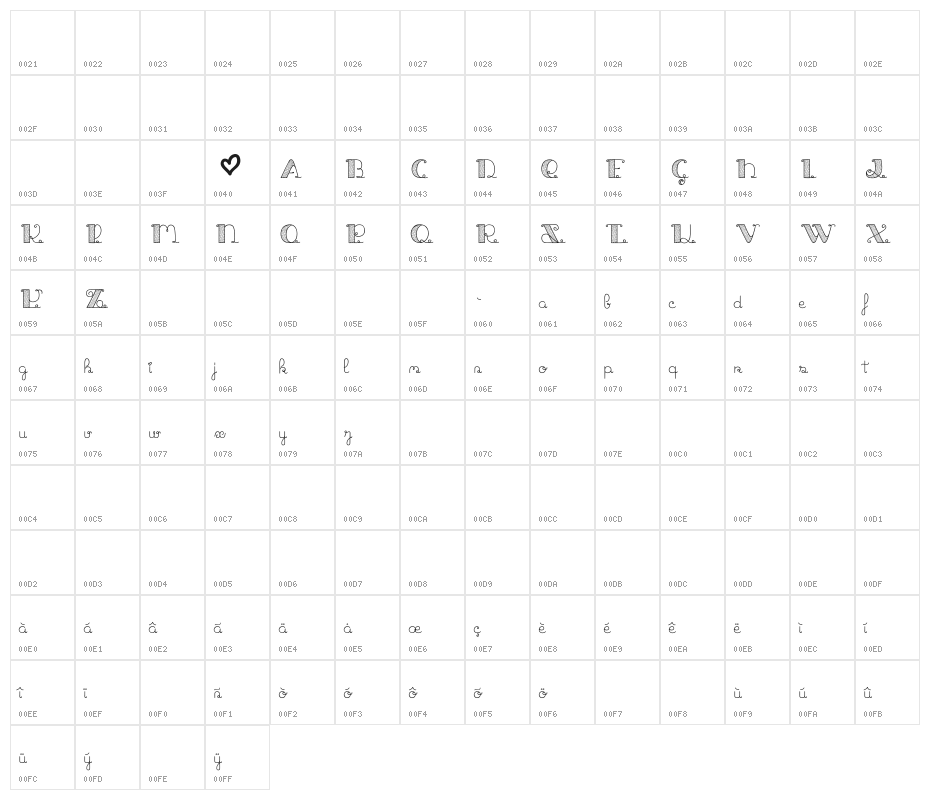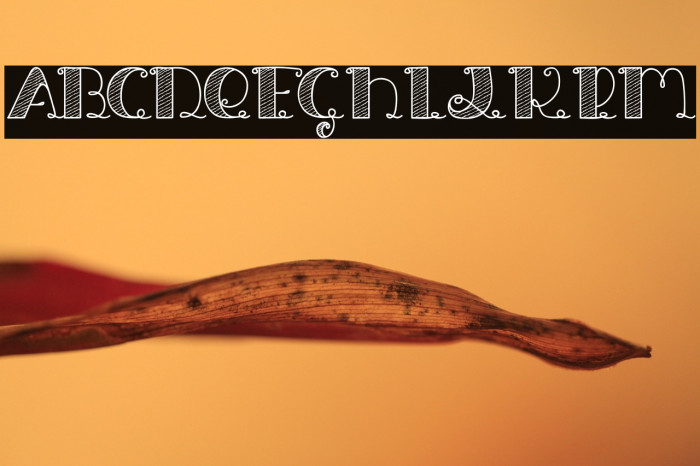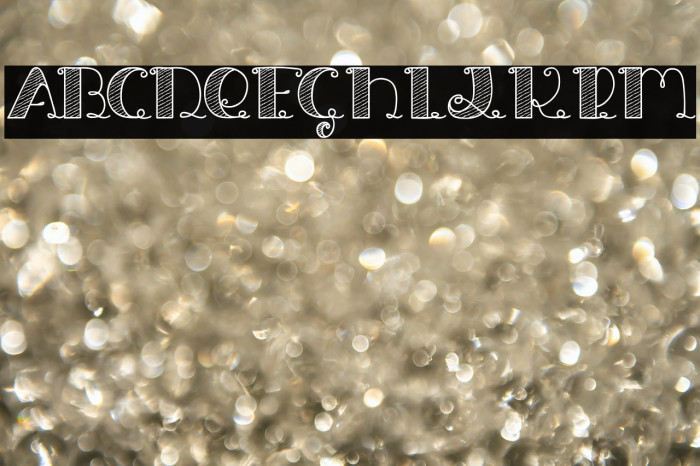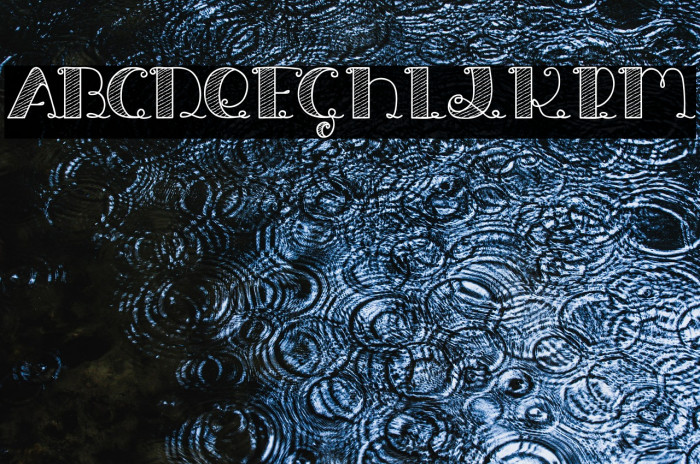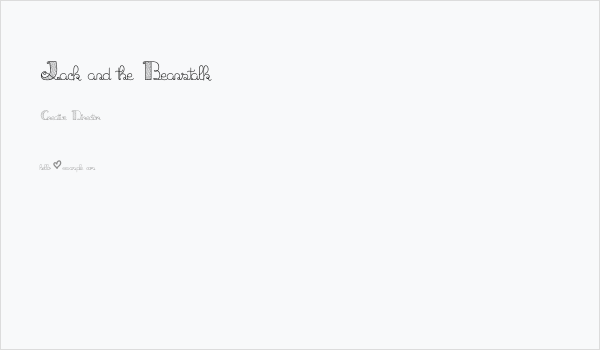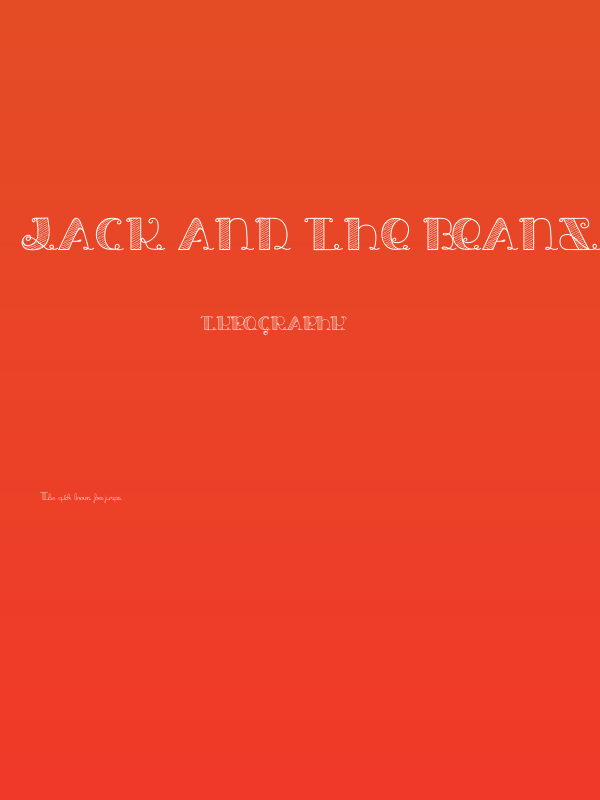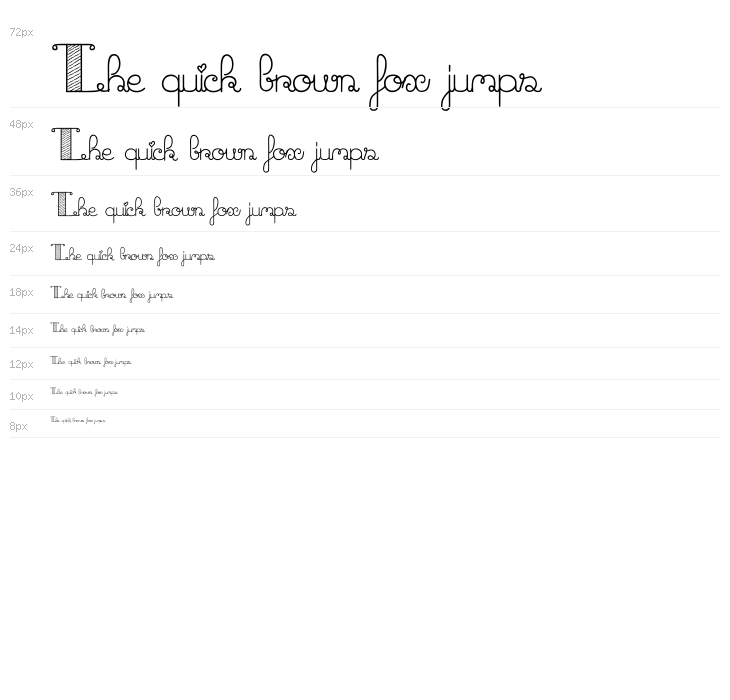
Jack and the Beanstalk Font
Jack and the Beanstalk Description
This whimsical and decorative font features a playful, curly design with intricate details. The uppercase letters are bold and ornate, with unique flourishes and a hand-drawn appearance. The lowercase letters maintain the same playful style, with elongated strokes and loops that add to the font's charm. The numbers and special characters are equally detailed, making this font ideal for creative and artistic projects. Its distinct style is reminiscent of fairy tales and fantasy, making it perfect for storytelling or themed designs.
| Proposed Projects | Ideal for children's books, fantasy-themed invitations, playful branding, and creative posters. |